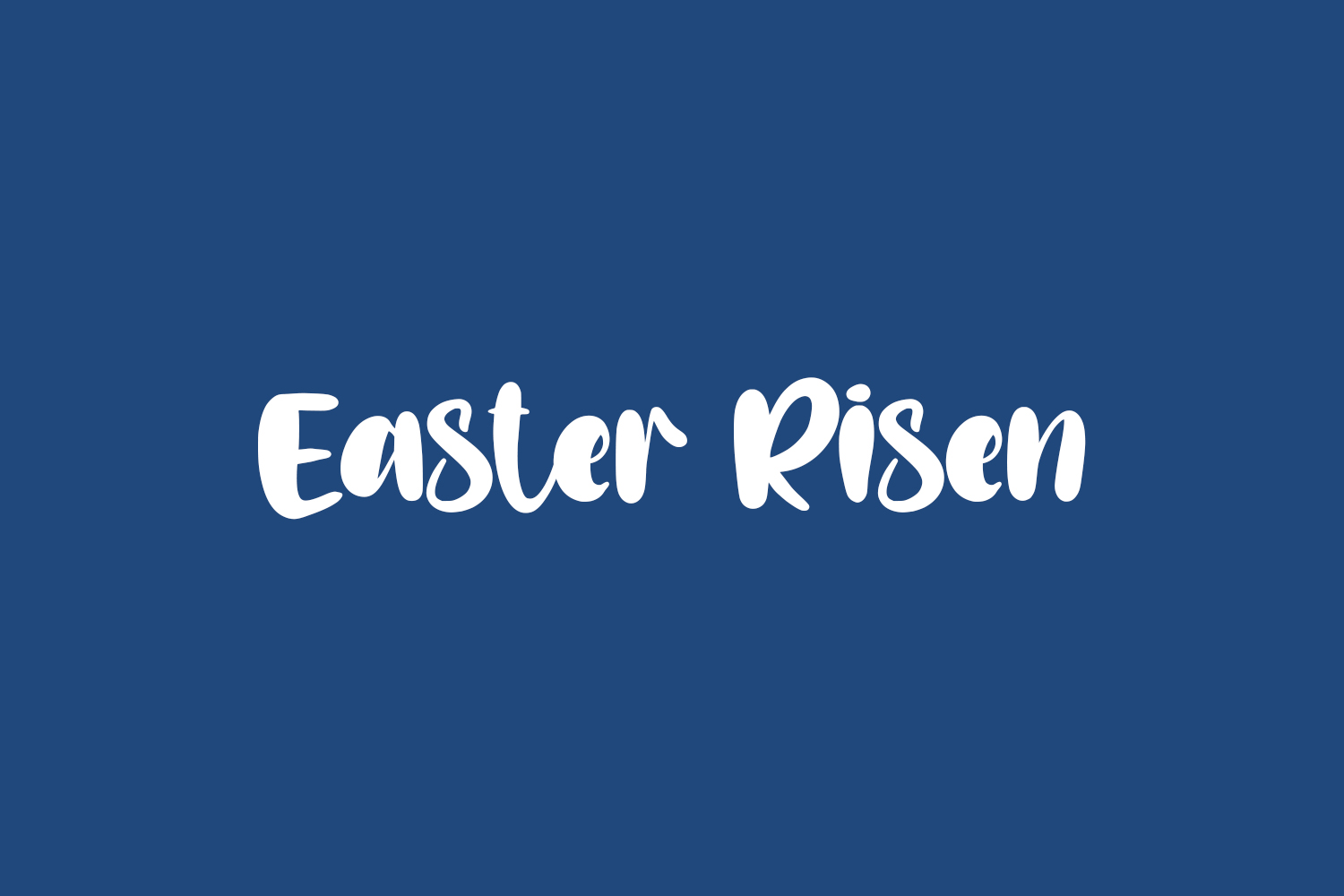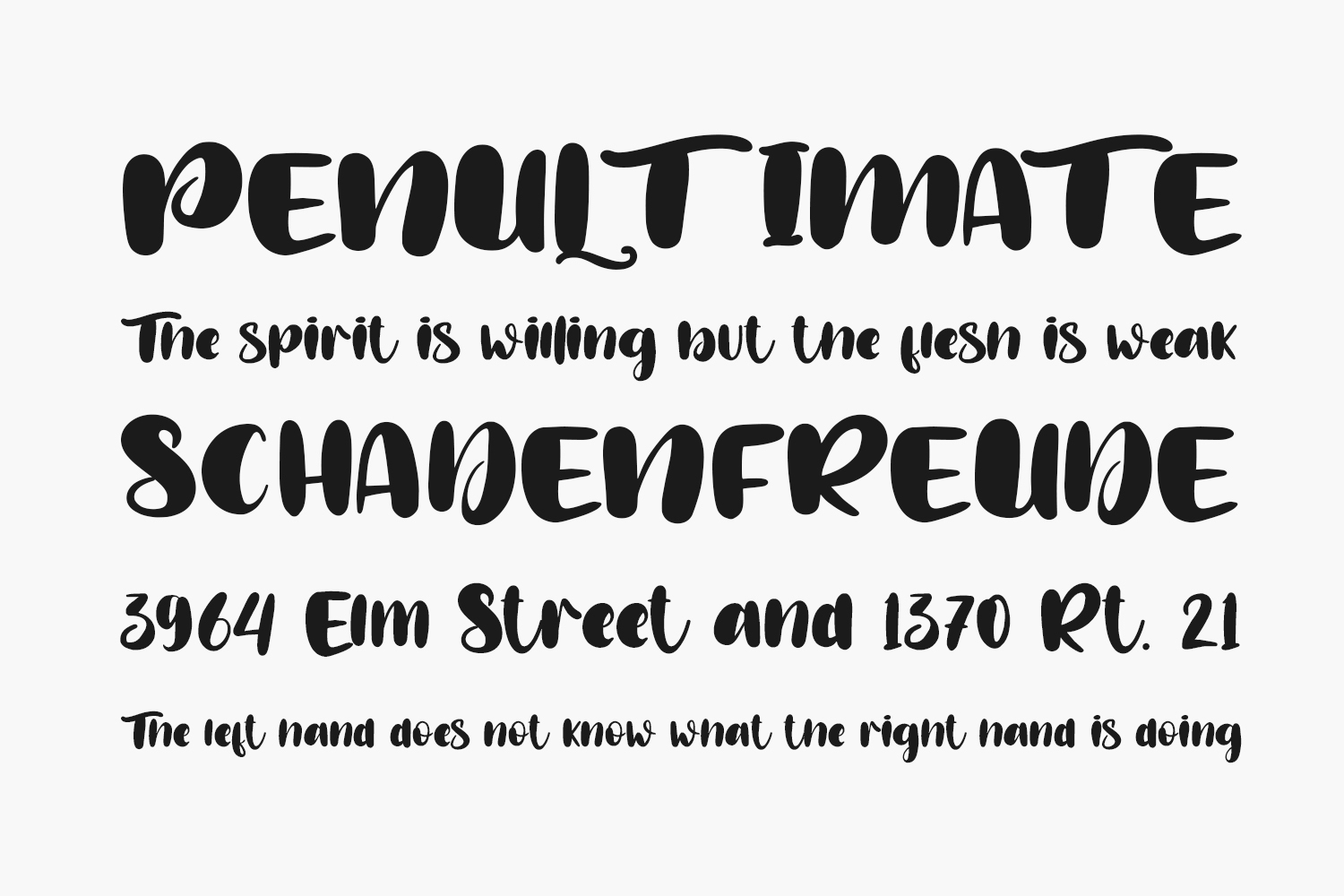
Celebrate the season with Easter Risen Free Font, a vibrant, casual, and welcoming handwritten font. Ideal for logos, branding, Easter cards, invitations, and beyond, this font adds a touch of freshness and friendliness to your designs. Free Font is free for personal use only. Please purchase the full version for commercial use.